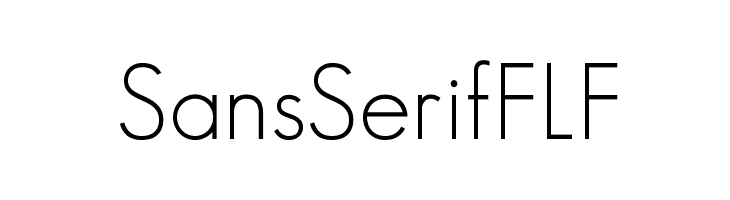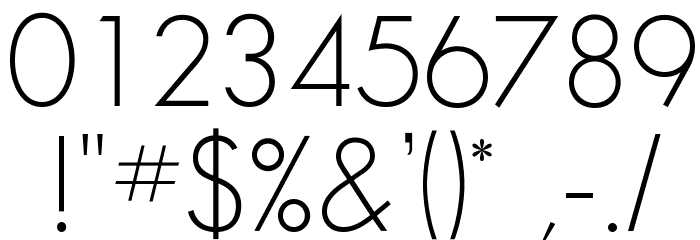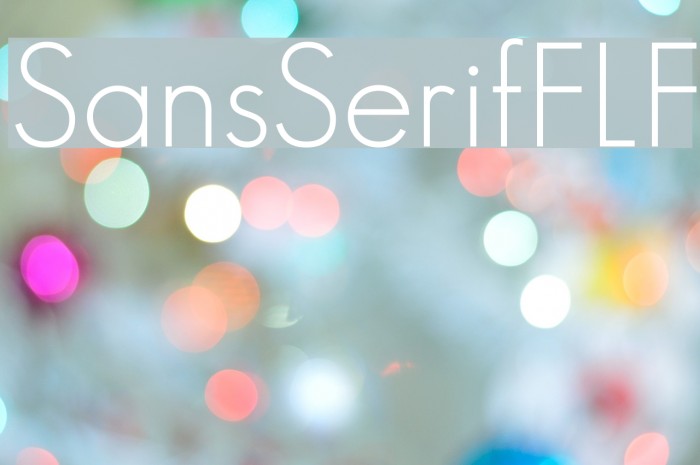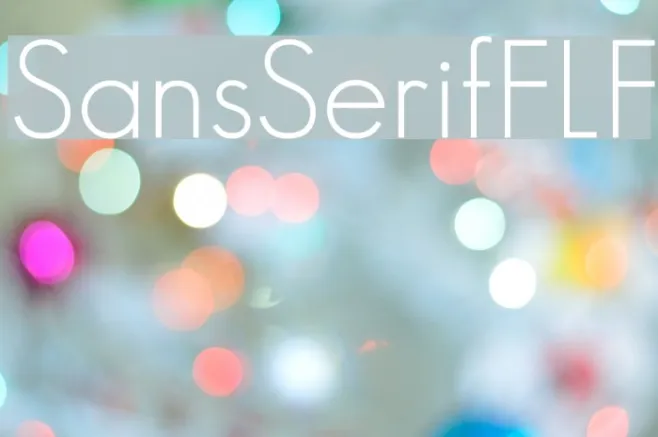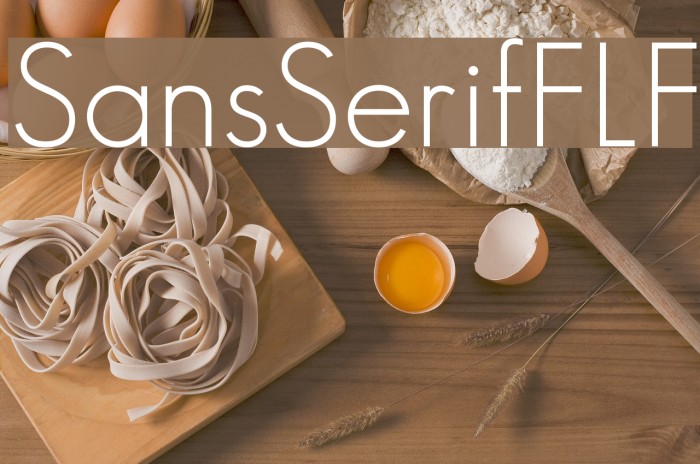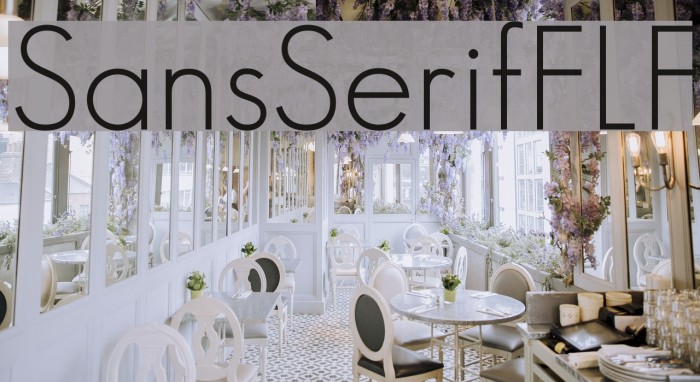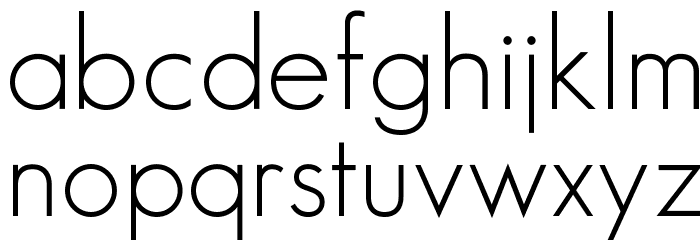
SansSerifFLF Font
SansSerifFLF Description
This font features a clean and modern sans-serif design with a geometric structure. The characters are evenly spaced, providing a balanced and harmonious appearance. The uppercase letters are tall and elegant, while the lowercase letters maintain a consistent height, contributing to a uniform look. The numerals are straightforward and align well with the overall style, making them easy to read. The special characters are designed with simplicity in mind, ensuring they integrate seamlessly with the rest of the font. This typeface is versatile, suitable for a wide range of applications, from digital to print media.
| Use Case | Headlines, Body text, Logos |
| Proposed Projects | Ideal for branding, web design, advertising, and editorial projects. |